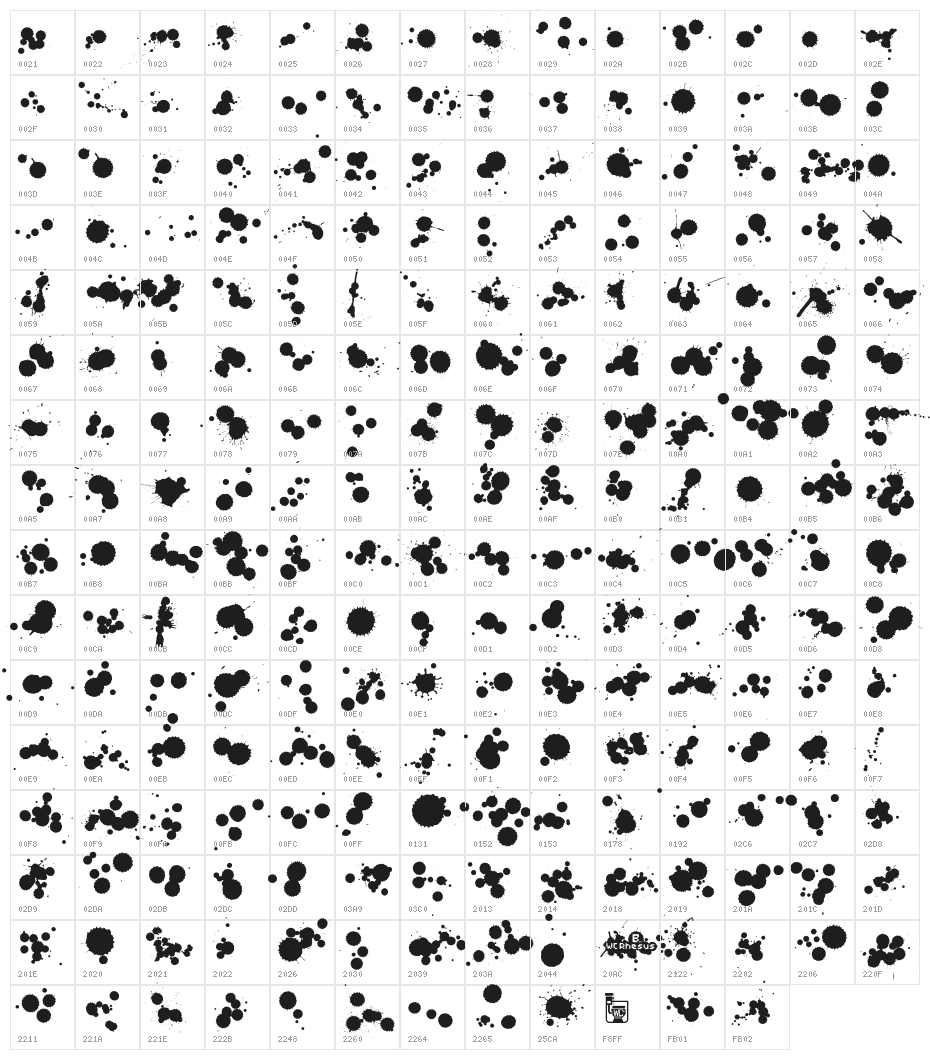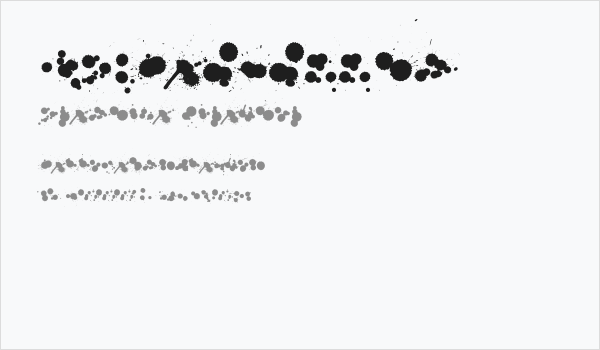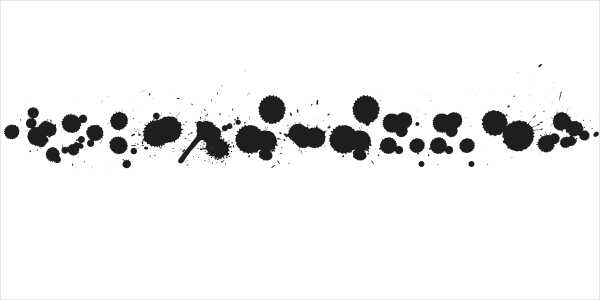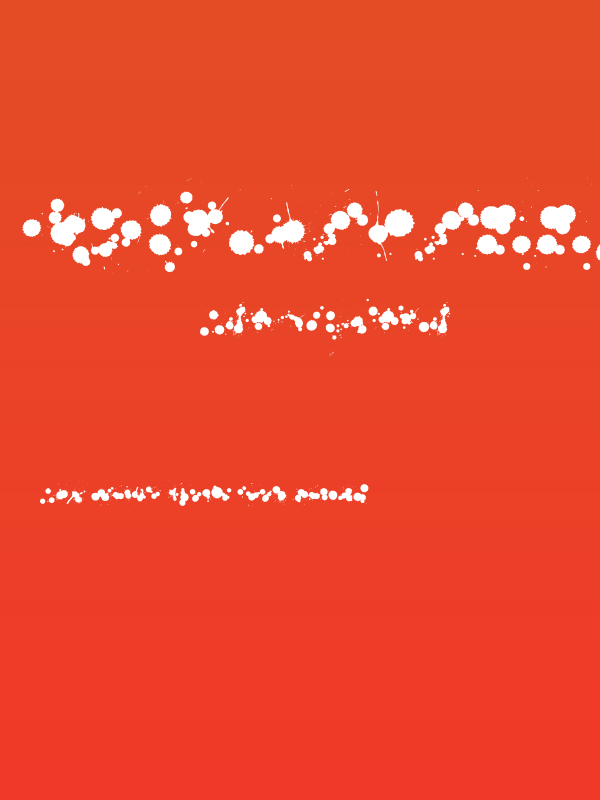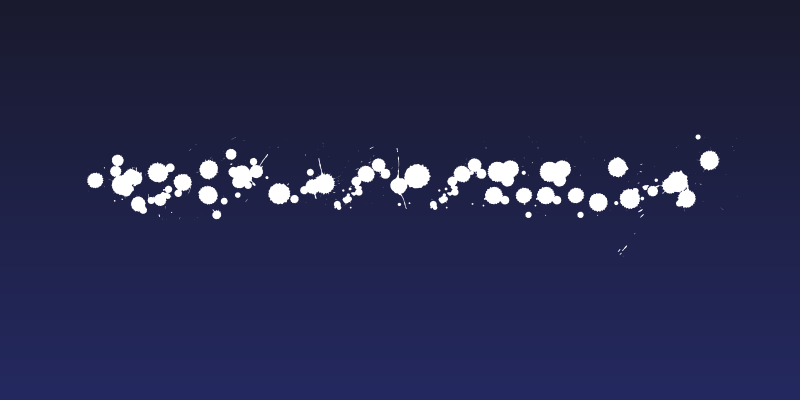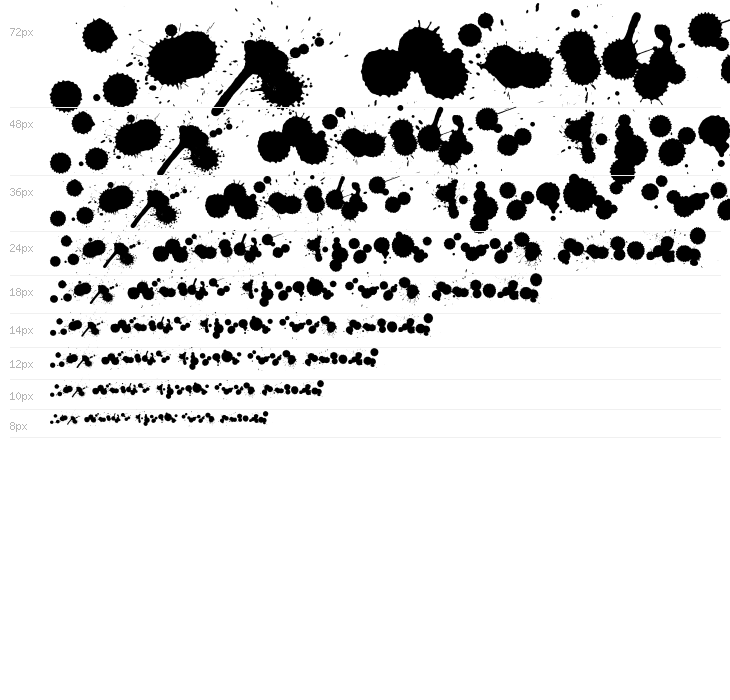
WCRhesusBBta Font
WCRhesusBBta Description
This font features a unique and artistic design that resembles ink splatters, creating an abstract and expressive appearance. Each character is formed by varying sizes of ink blots, giving it a dynamic and spontaneous feel. The irregular shapes and sizes of the splatters contribute to a sense of movement and creativity. This font is highly decorative and unconventional, making it suitable for projects that require a bold and artistic statement. The overall style is modern and experimental, with a focus on visual impact rather than readability.
| Overall Style | Modern, Experimental |
| Proposed Projects | Ideal for artistic posters, album covers, creative branding, and experimental design projects. |